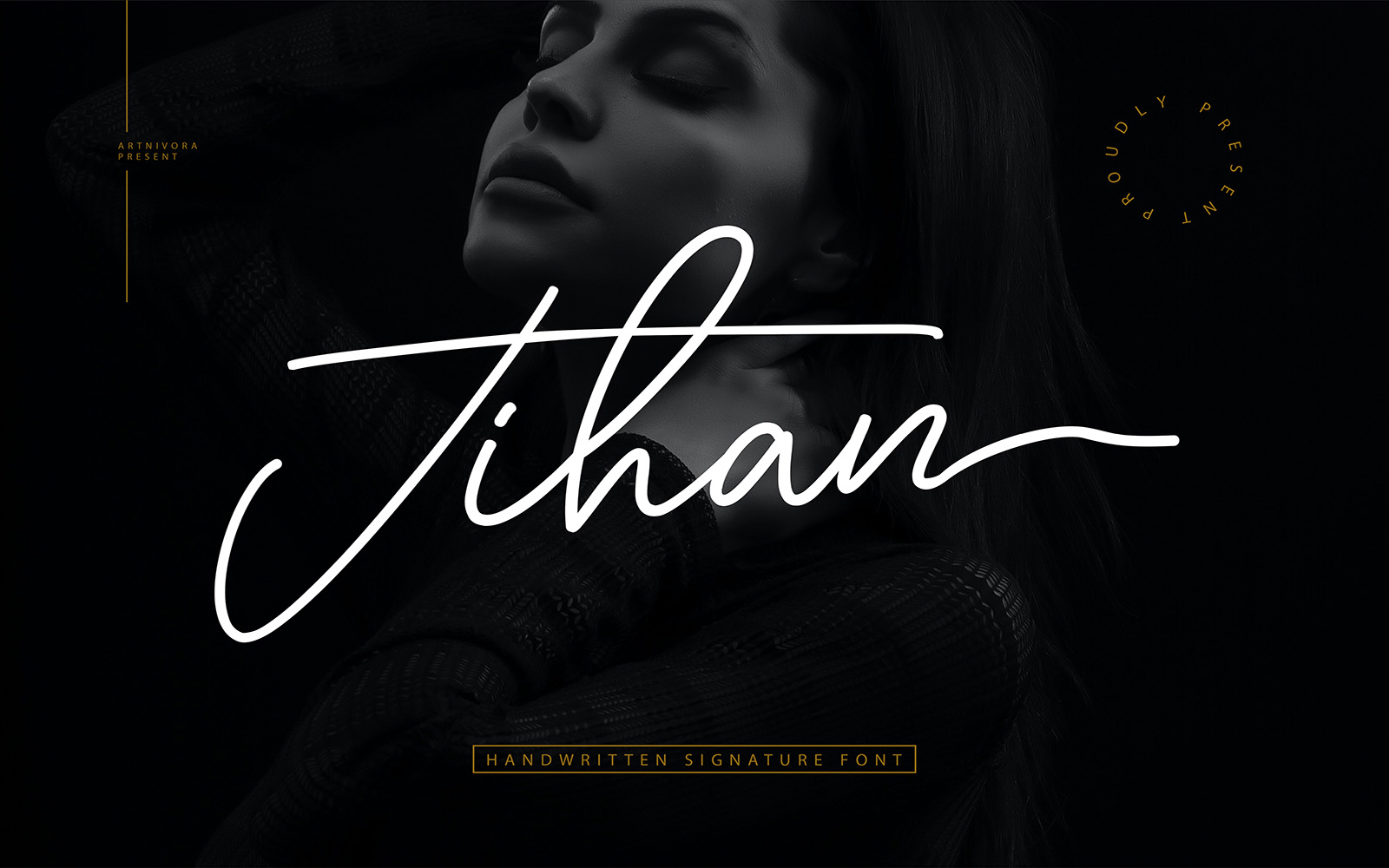
Jihan - Handwritten Signature Font
Introducing **Jihan**, a simple and handwritten font.
So perfect for you who needs a typeface for logo designs, magazine, social media, brochure, and many more.